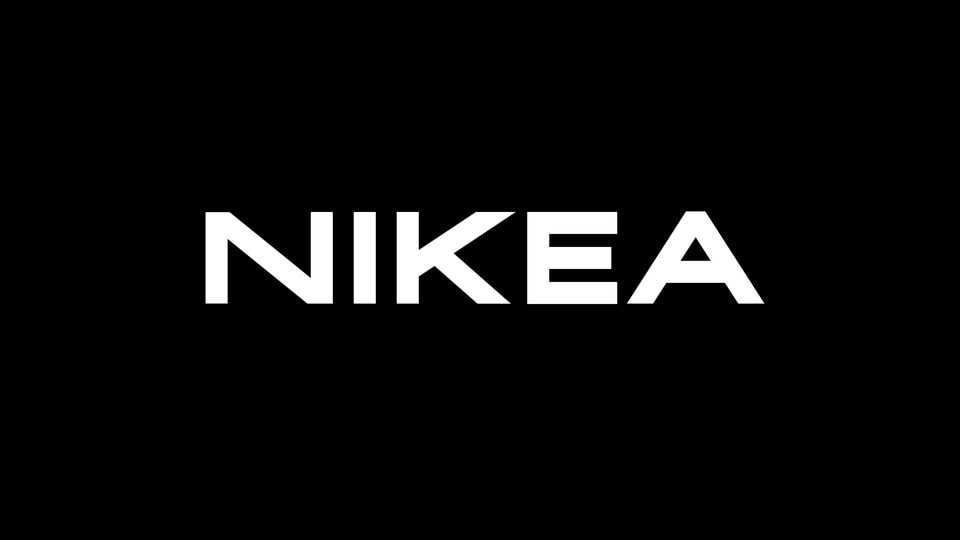
Download Nikea font, a modern display typeface with a bold and impact appearance. Nikea is perfect to create eye-catching headings, logos, posters, ads and many more.